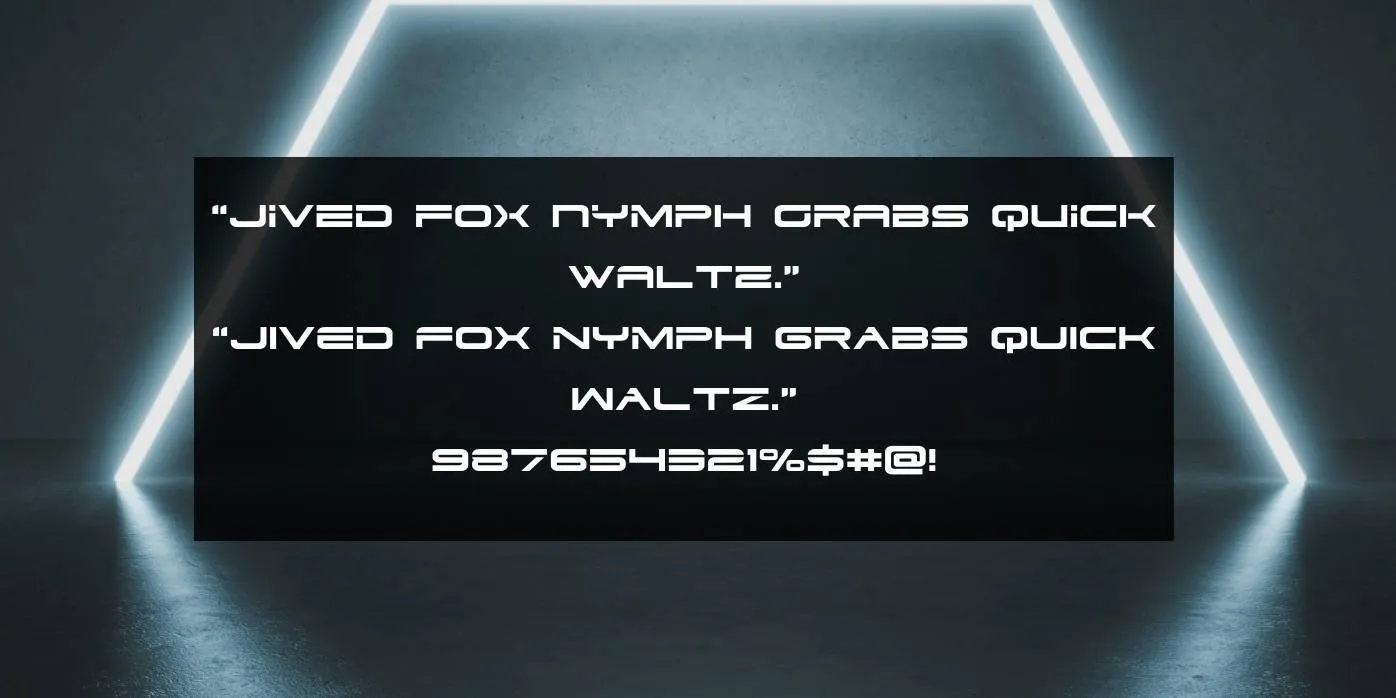
Dodger Font
In this post, we introduce a stunning typeface that is known by the name Dodger Font. This family belongs to the techno family. The main designer of this typeface is Iconian Fonts. This family is specified for the CSS and SVG.
This awesome font has available in three weights including regular, Italic, and Bold. It is a perfect choice for making headlines, posters, logos, and banners. You can also use the copy and paste function of this family. You can also use pepsi font which is similar to this font family.
Dodger Font was created with the help of a modified version of the Arial typeface. This family includes more than 200 glyphs as well as supports various international languages. You can easily use this font for commercial as well as personal purposes. If you are looking for a techno font with a touch of modernity then Dodger is the best option for you.